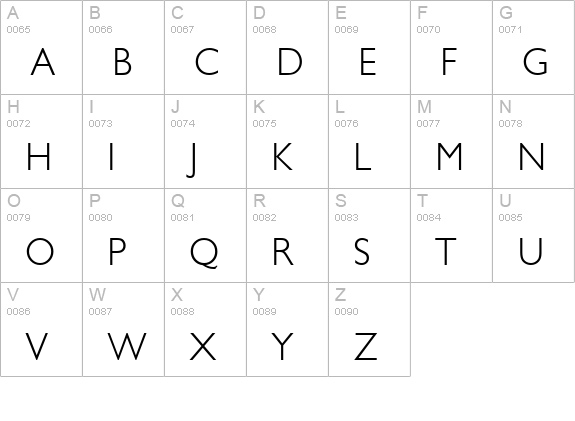
Chantilly-Light-Regular Font Details
Chantilly-Light-Regular is a refined, elegant variant in the Chantilly typeface family \xE2\x80\x94 well suited to elegant body text, refined sub-headings, and luxury branding.
Chantilly-Light-Regular is a versatile and elegant font that exudes sophistication and charm. With its delicate curves and clean lines, this font is perfect for a wide range of design projects, from wedding invitations to branding materials. The light weight of this font gives off a subtle and refined aesthetic, making it suitable for both print and digital applications. The best part about Chantilly-Light-Regular is that it is free to download at FontsMarket.com. This means you can easily access this beautiful font and use it in your projects without any cost. Whether you are a designer looking to add a touch of elegance to your work or a business owner in need of a stylish font for your branding, Chantilly-Light-Regular is sure to impress. Download it today and elevate your designs with this stunning typeface.